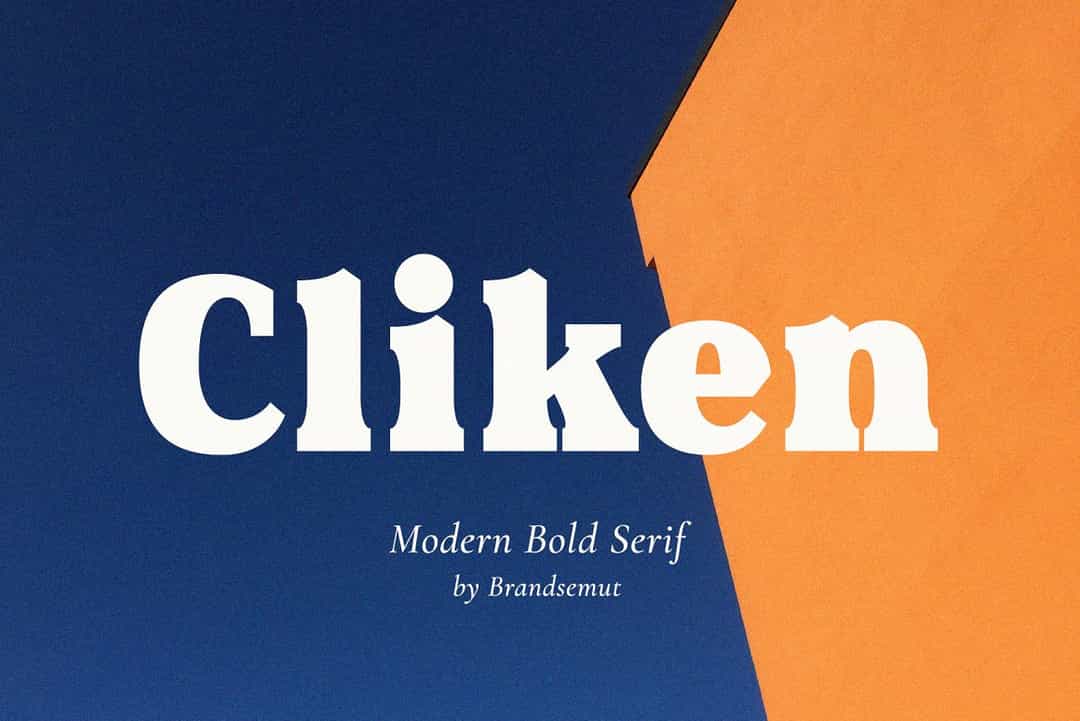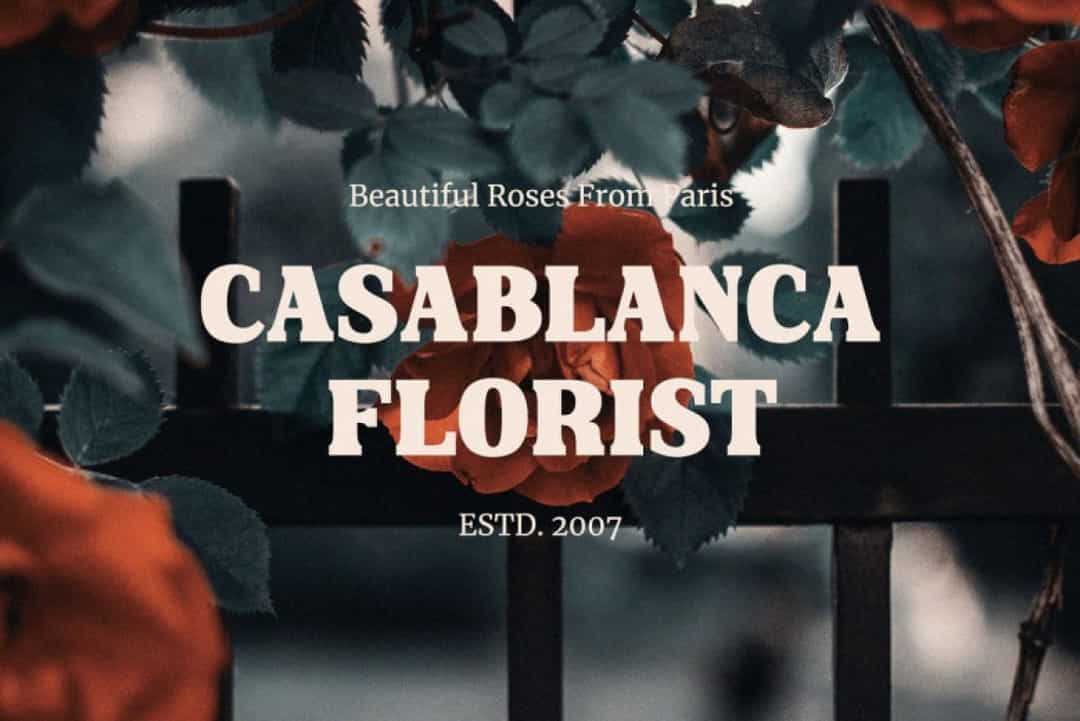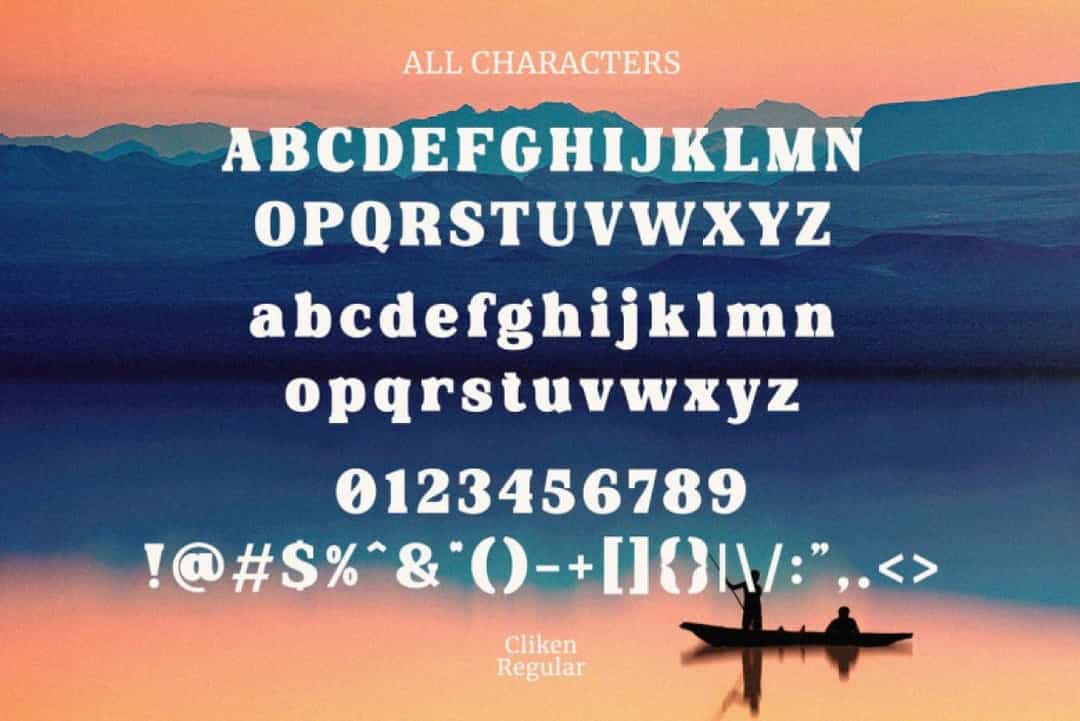
Cliken is an eye-catching serif font ideal for display headings and logos, branding magazines, product packaging, invitations, and invitations. Distinguished by clean, crisp lines and smooth curves that add sophistication to every project, Cliken adds style and class.